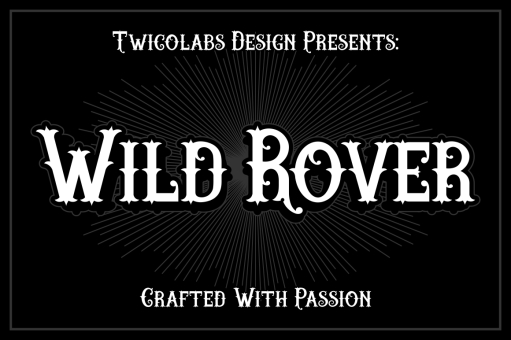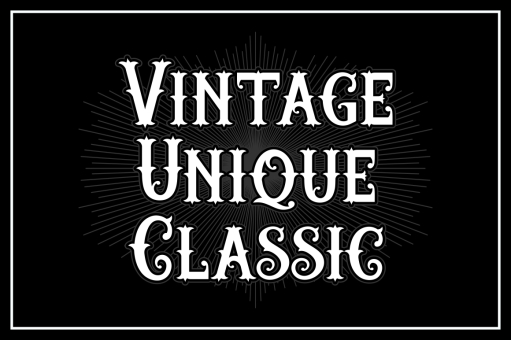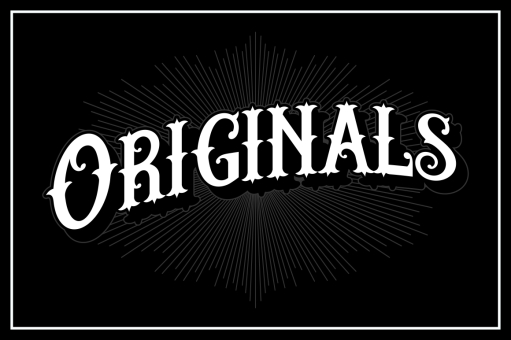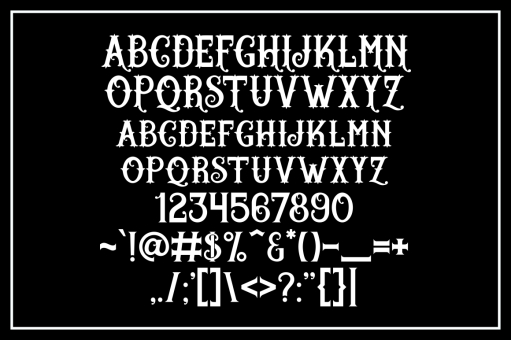
Wild Rover
Wild Rover is a vintage and unique typeface inspired by the classic signpainting letters.
Suits best for your vintage / classic themed design.
Comes in uppercase, lowercase, numerals and basic punctuation characters.